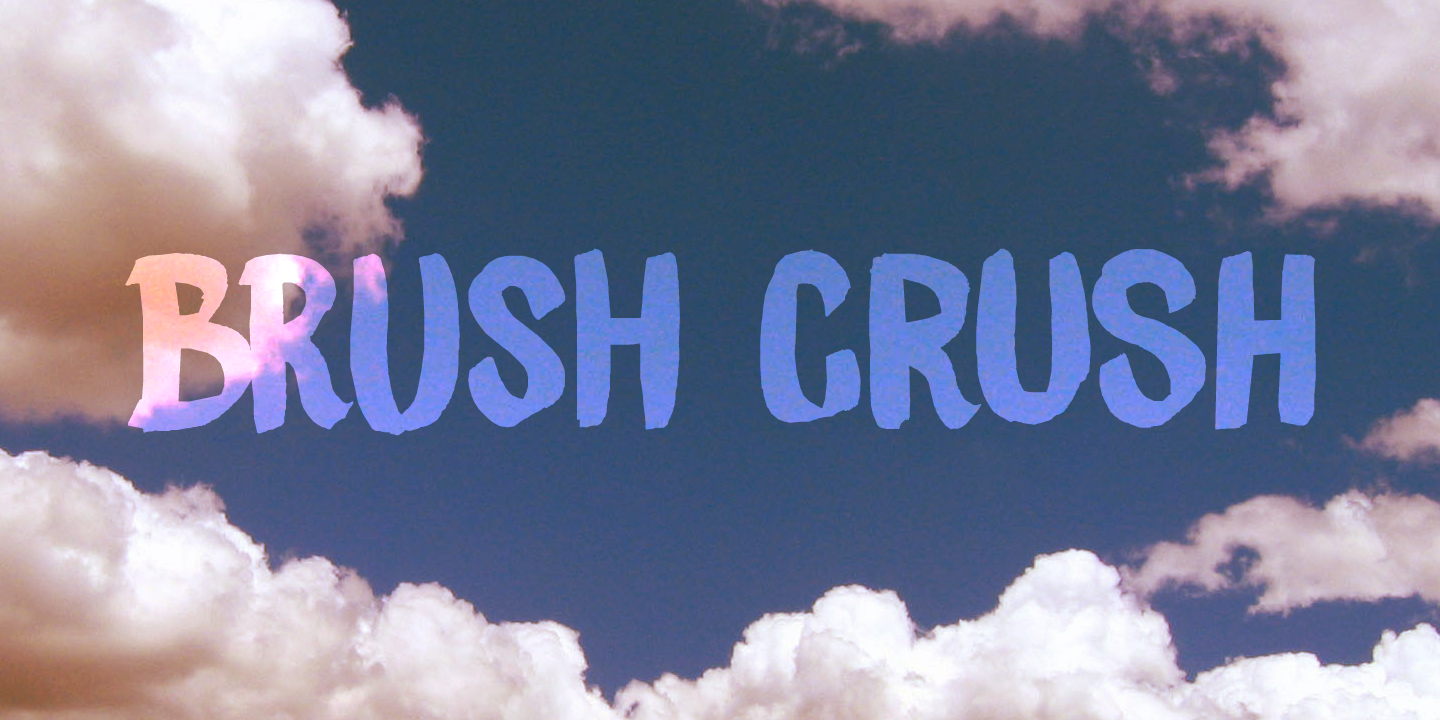
Brush Crush Font Free Download is a bold, energetic brush script typeface that brings a lively, hand-painted feel to your creative projects. With its dynamic strokes and expressive character, this font is perfect for posters, logos, apparel design, social media graphics, product packaging, and event invitations. Brush Crush Font adds a fun, artistic vibe that helps your designs stand out with personality and flair.
With Brush Crush Font Free Download, you’ll get a full set of uppercase, lowercase, numbers, and essential punctuation, giving you flexibility across various applications. Whether you’re crafting eye-catching headlines, branding materials, or promotional content, this font ensures maximum visual impact while maintaining a natural, handcrafted look.
Elevate your design work with Brush Crush Font Free Download. Its bold, brushstroke style brings energy and authenticity, making it an essential choice for projects that need to grab attention and convey creativity.